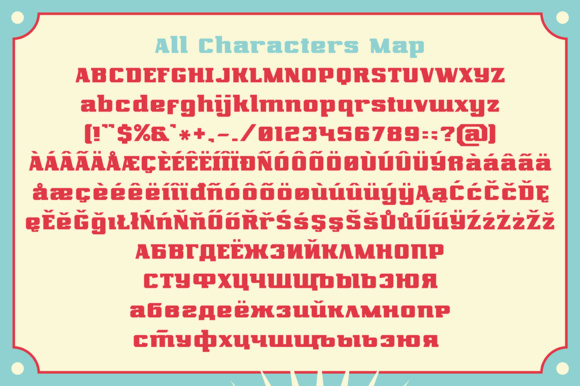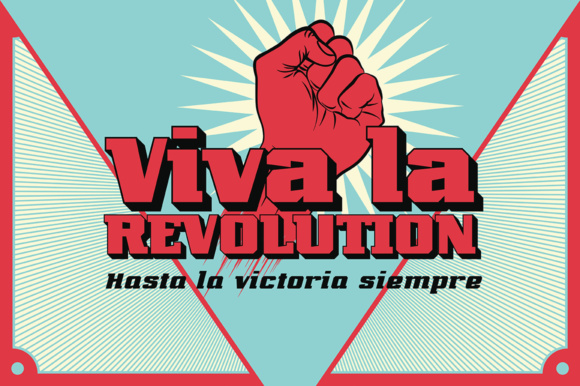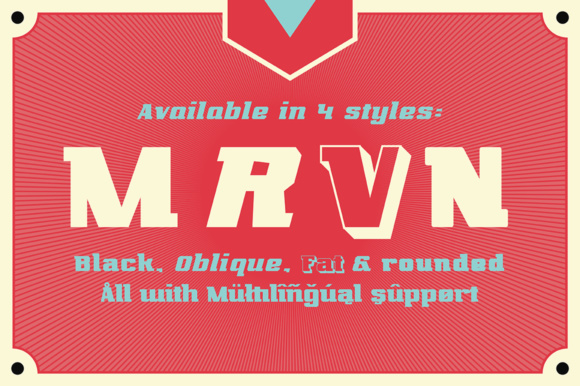
Introduction to Marvin Black Font
Marvin Black is a strong slab serif font, inspired by bulldozers.
This font looks amazing as a standalone display, or when accompanied by contrasting styled type Marvin Black is also a perfect logotype option.
Key Features of Marvin Black Font
Why Choose Marvin Black Font?
Marvin Black Font offers exceptional quality and versatility, making it a valuable addition to your design toolkit. Whether you’re creating for personal projects or commercial use, Marvin Black Font delivers professional results.